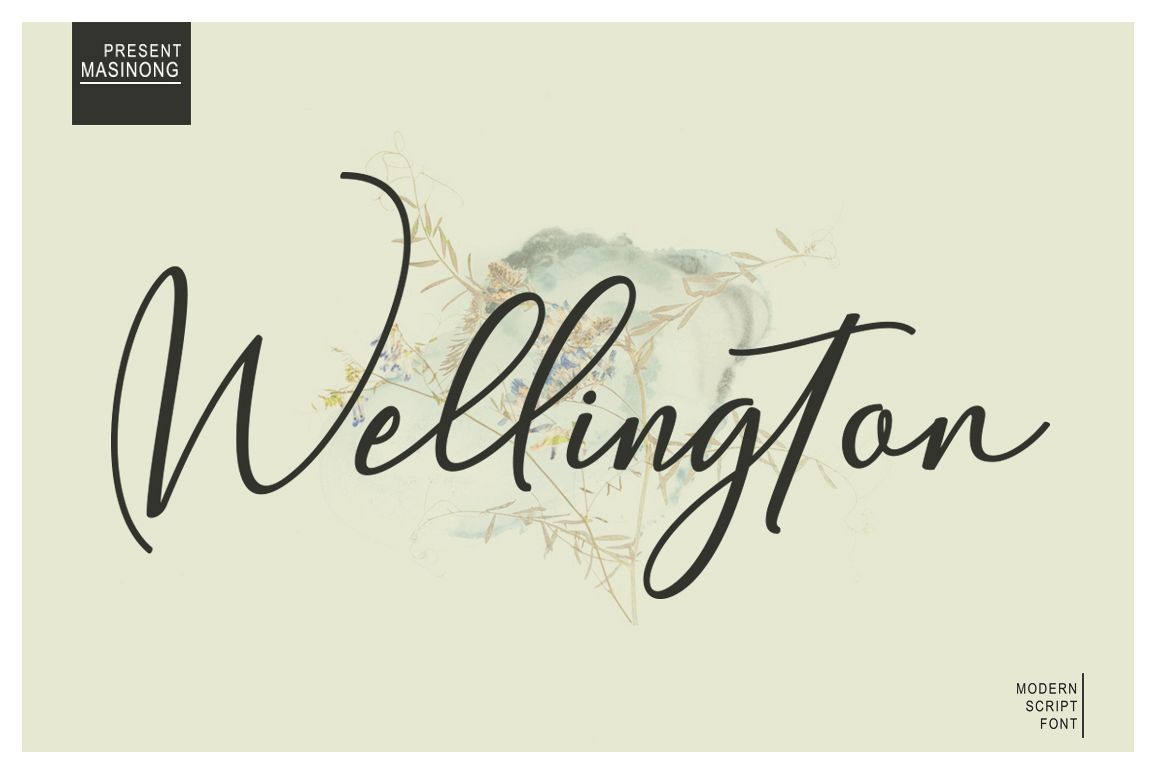
Wellington
This is Wellington, simple and easy to create awesome lettering, just type your words and then you will immediately see the great results.
Wellington features:
Uppercase & lowercase Stylistic alternatives & swashes Ligatures Initials & finals International characters (Multilingual) Punctuation & symbols If you don't have a program that supports OpenType features such as Adobe Photoshop or Illustrator, you can access all the alternate glyphs using Font Book (Mac) or Character Map (Windows).